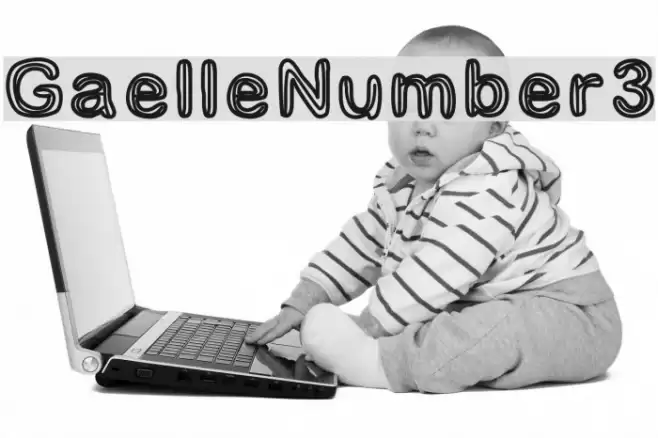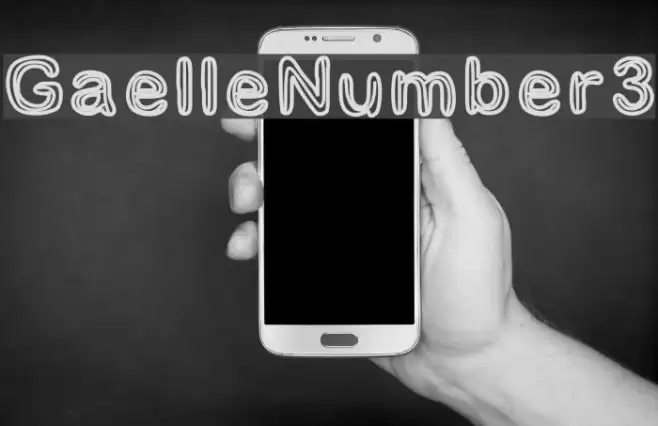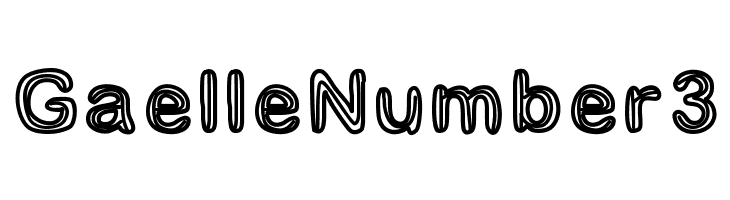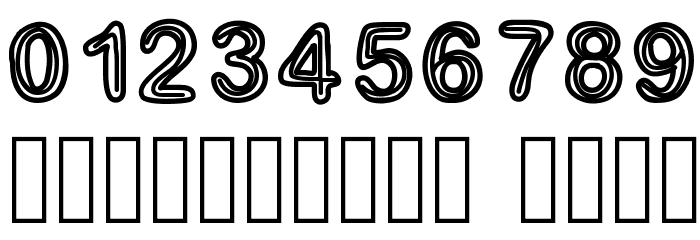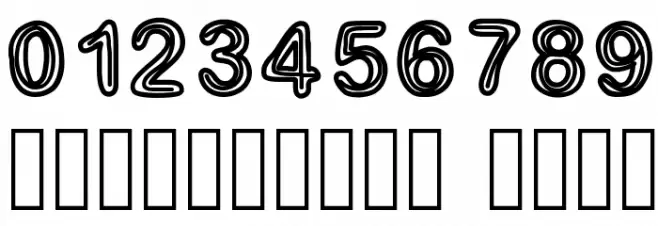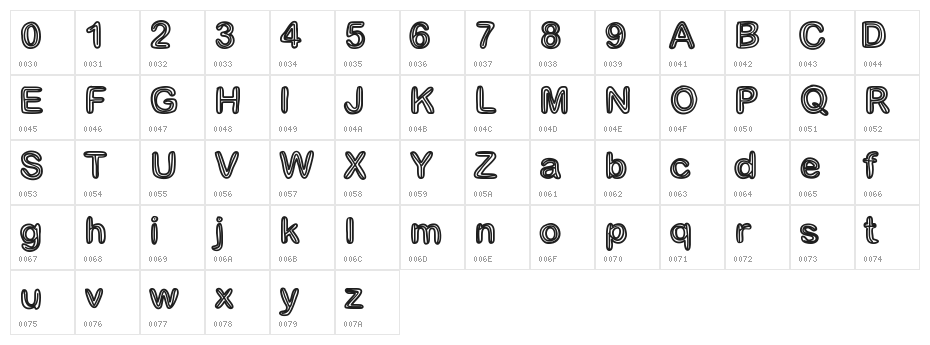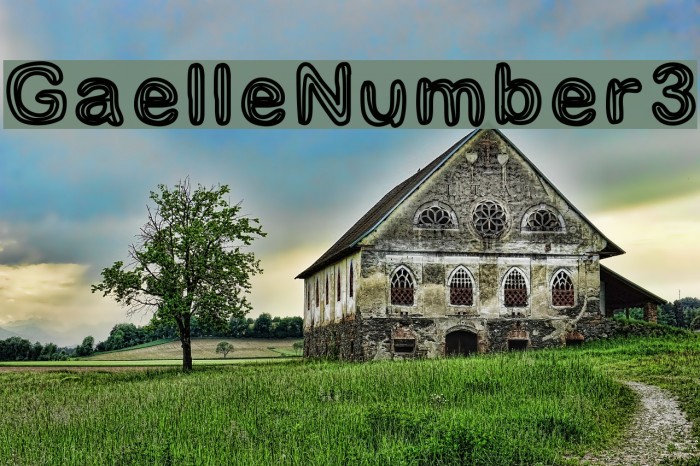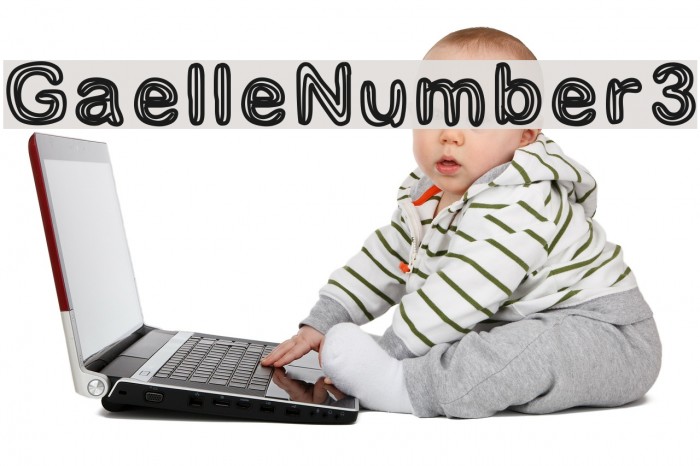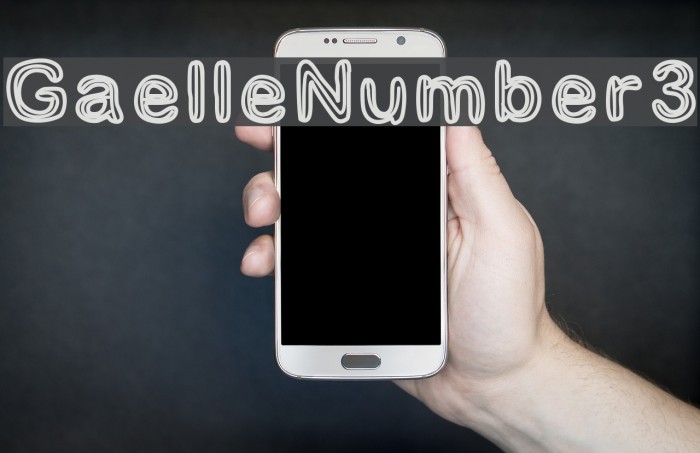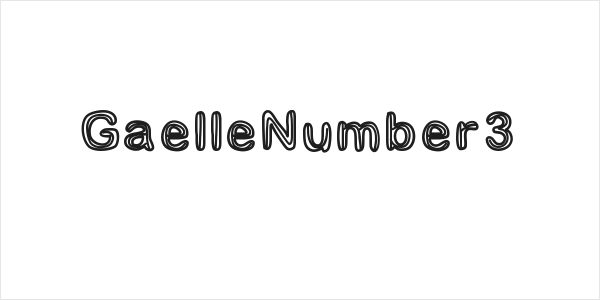
GaelleNumber3 Font
GaelleNumber3 Description
This font features a playful and bold design with a double-line effect that creates a sense of depth and dimension. The characters are rounded and have a consistent thickness, giving them a friendly and approachable appearance. The uppercase and lowercase letters maintain a uniform style, while the numbers and special characters complement the overall look. The font's unique outline style makes it stand out, making it suitable for creative and eye-catching designs. Its versatility allows it to be used in various contexts, from fun and informal to modern and trendy applications.
A playful, bold font with a double-line effect and rounded characters from Decorative fonts.
- Proposed Projects: Ideal for children's books, playful branding, posters, and creative digital content.
- Overall Style: Playful, Modern